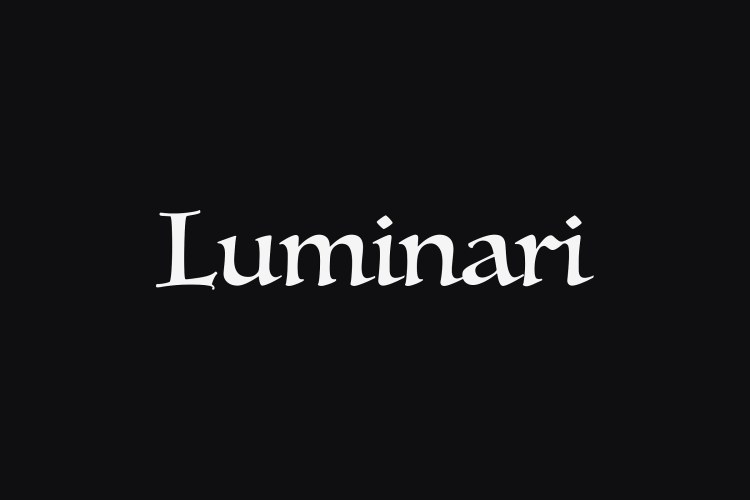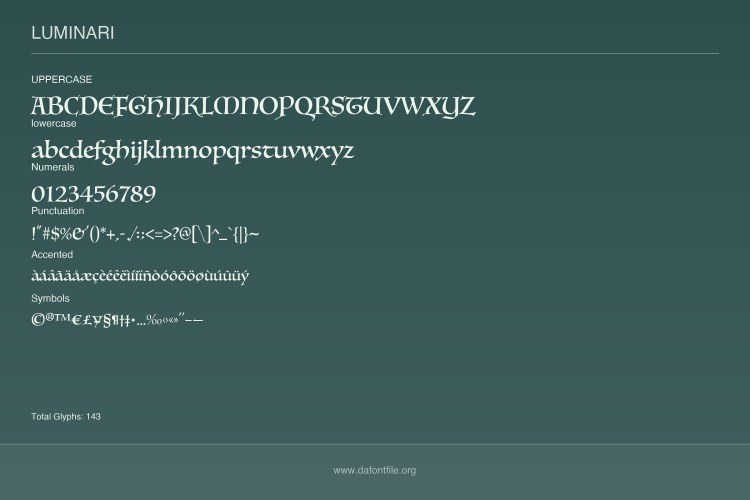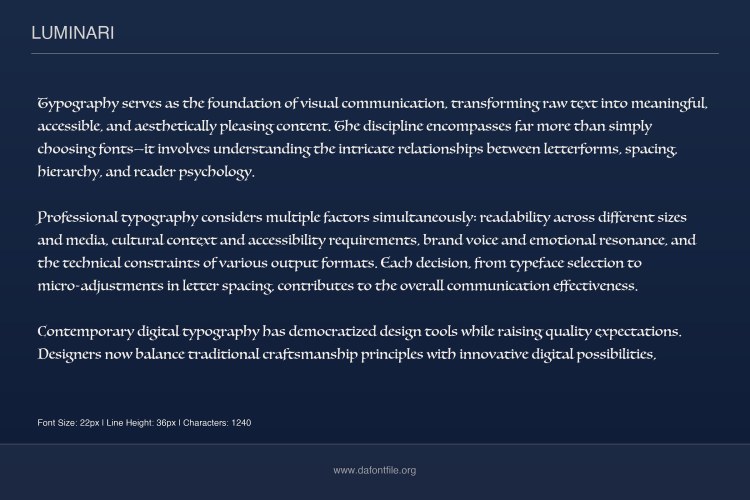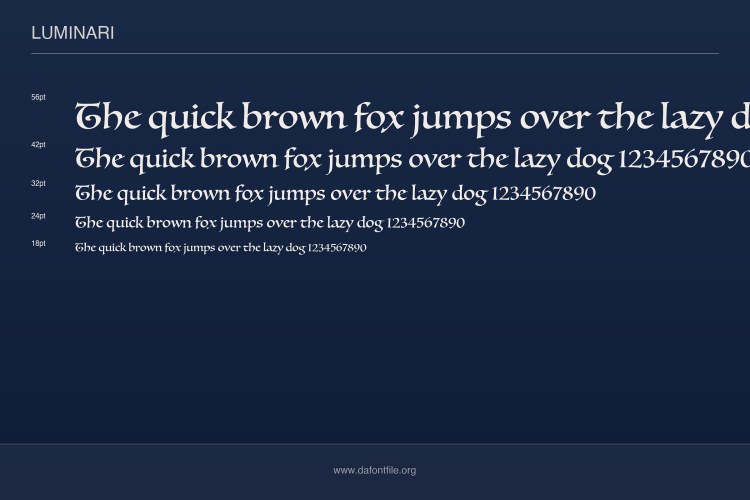
Luminari Font
Luminari is a decorative serif font that blends medieval charm with a modern touch. Its tall letters and unique details make it stand out in titles, invitations, posters, and branding projects. Designers choose Luminari when they want to add a historic, elegant feel to their work.
Luminari Font is a Display Fonts font that brings a professional and versatile look to your projects. Luminari is a decorative serif font that blends medieval charm with a modern touch.